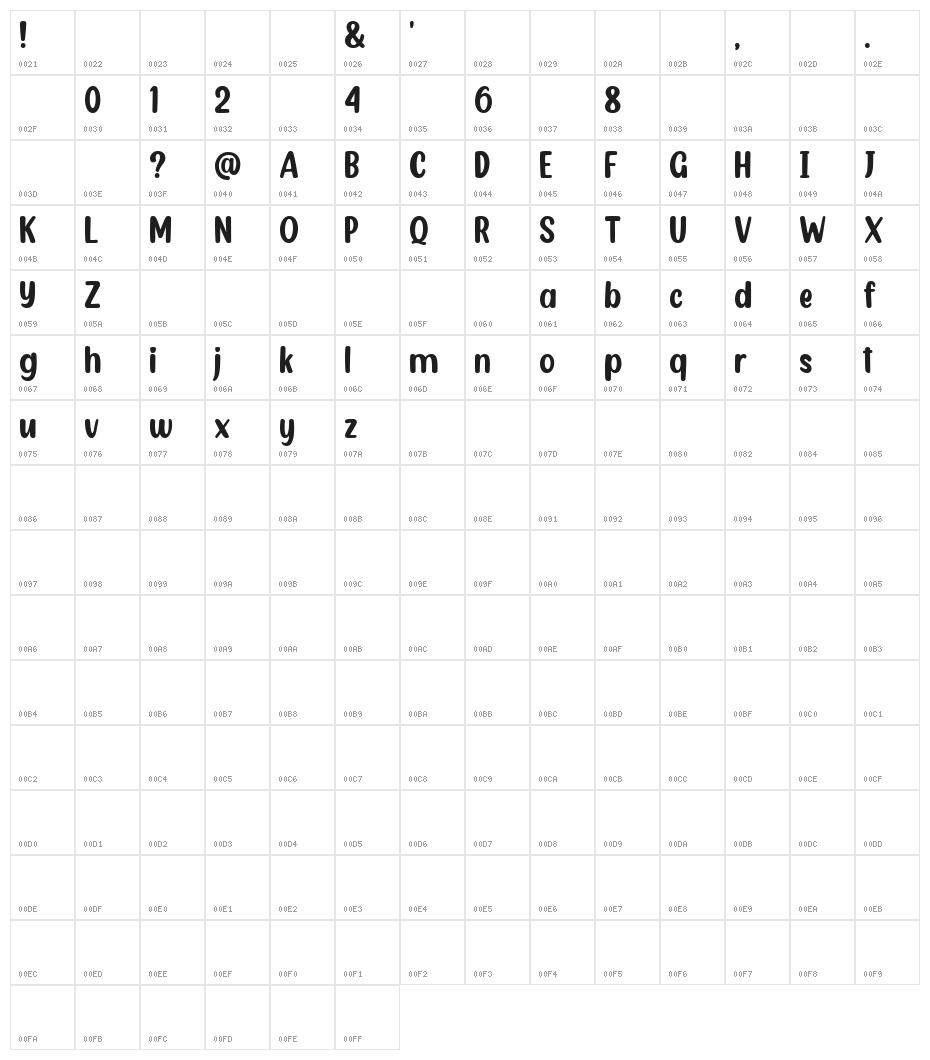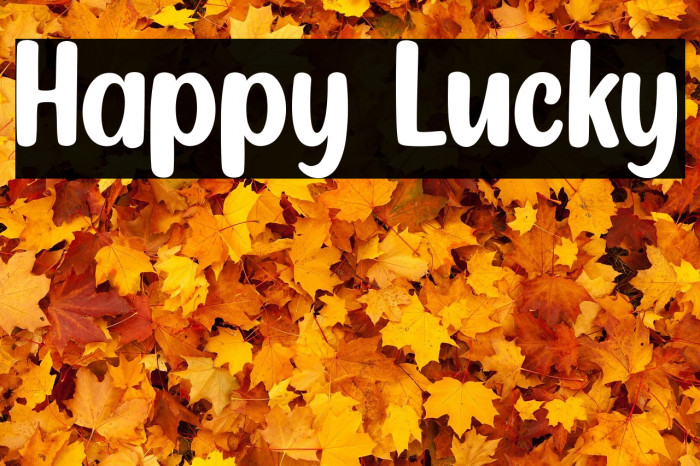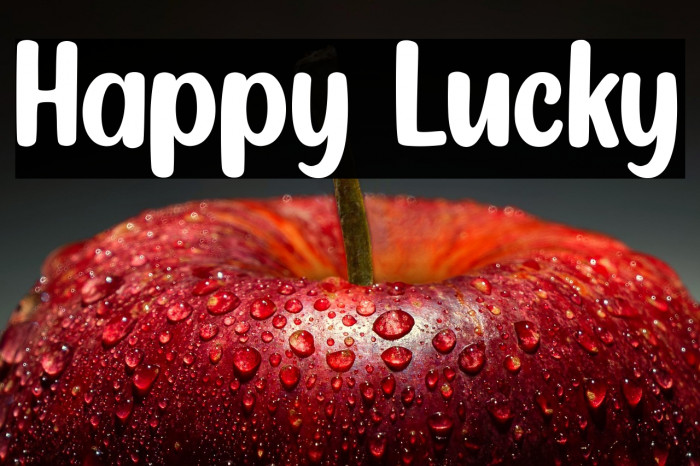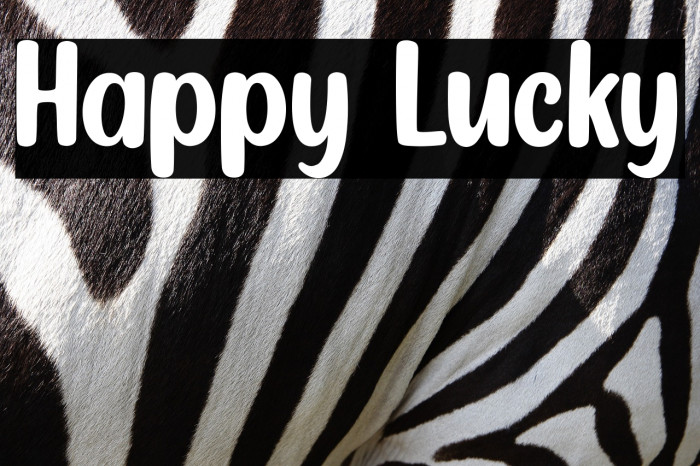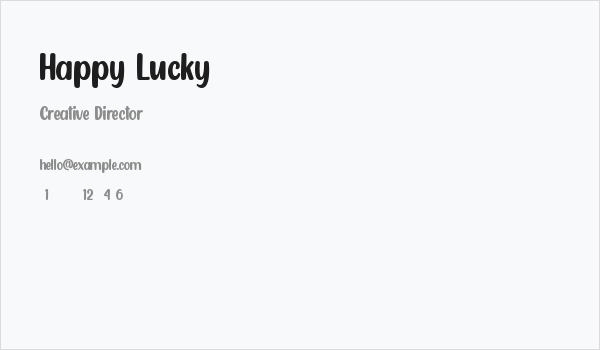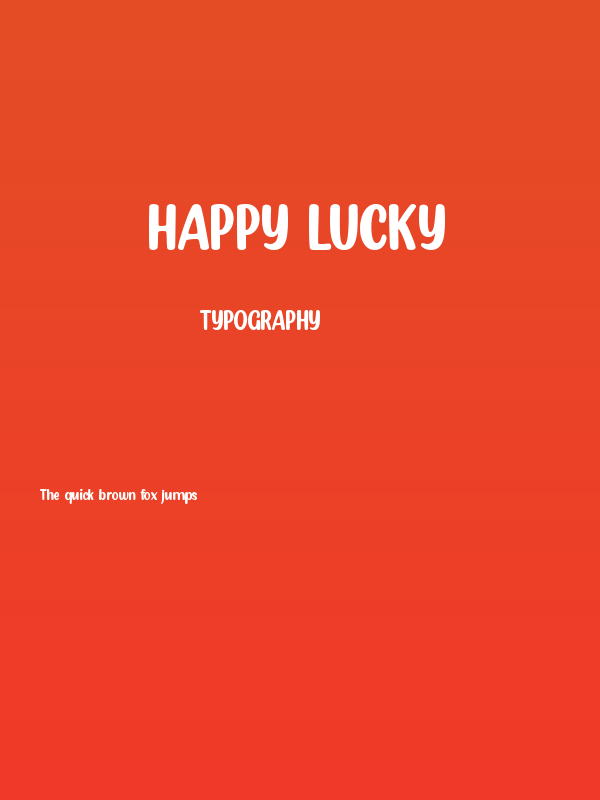
Happy Lucky Font
Happy Lucky Description
This playful and bold font features rounded edges and a friendly, approachable style. The characters are thick and slightly condensed, giving a sense of warmth and cheerfulness. The uppercase and lowercase letters maintain a consistent weight, while the numbers and special characters blend seamlessly with the overall design. The font's smooth curves and balanced proportions make it ideal for projects that require a touch of whimsy and fun. Its legibility and distinctive appearance ensure that it stands out in any application.
| Proposed Projects | Ideal for children's books, playful branding, greeting cards, and posters. |